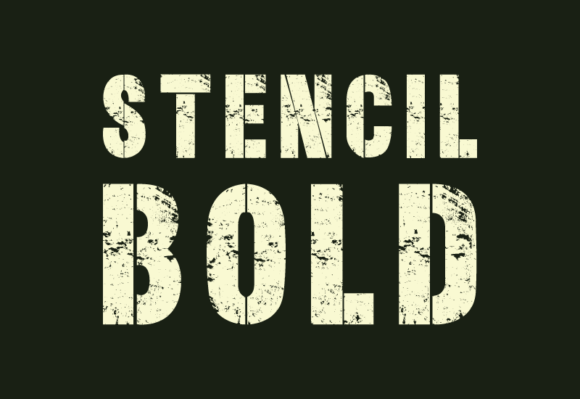
Stencil Bold Font
Harness the power of uniqueness with our ‘Stencil Bold’ sans-serif typeface. Famous for its innovative, slightly unconventional design, Stencil Bold transcends beyond being a mere font. Each raw, defiant line is textured with a distressed finish, fostering a vibe of boldness and resistance. Flaunting its fearless boldness and distinct spirit, Stencil Bold offers the ideal stylistic enhancement for ventures that dare to be different.
From disruptive print media and provocative music artwork to head-turning street fashion labels, Stencil Bold is designed to reflect the spirit of defiance. Utilize Stencil Bold to amplify your design prowess and express your messages with unforgettable impact.